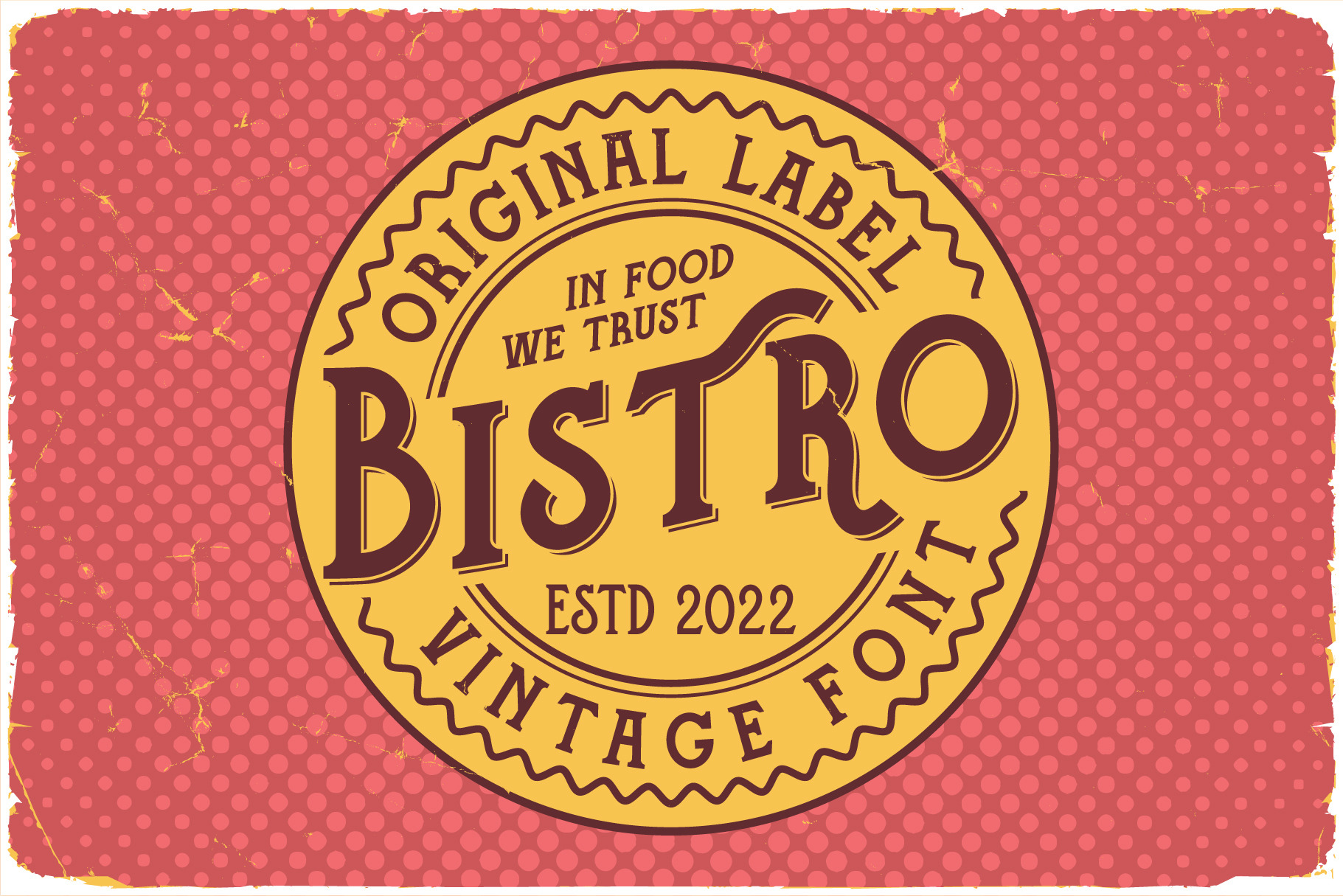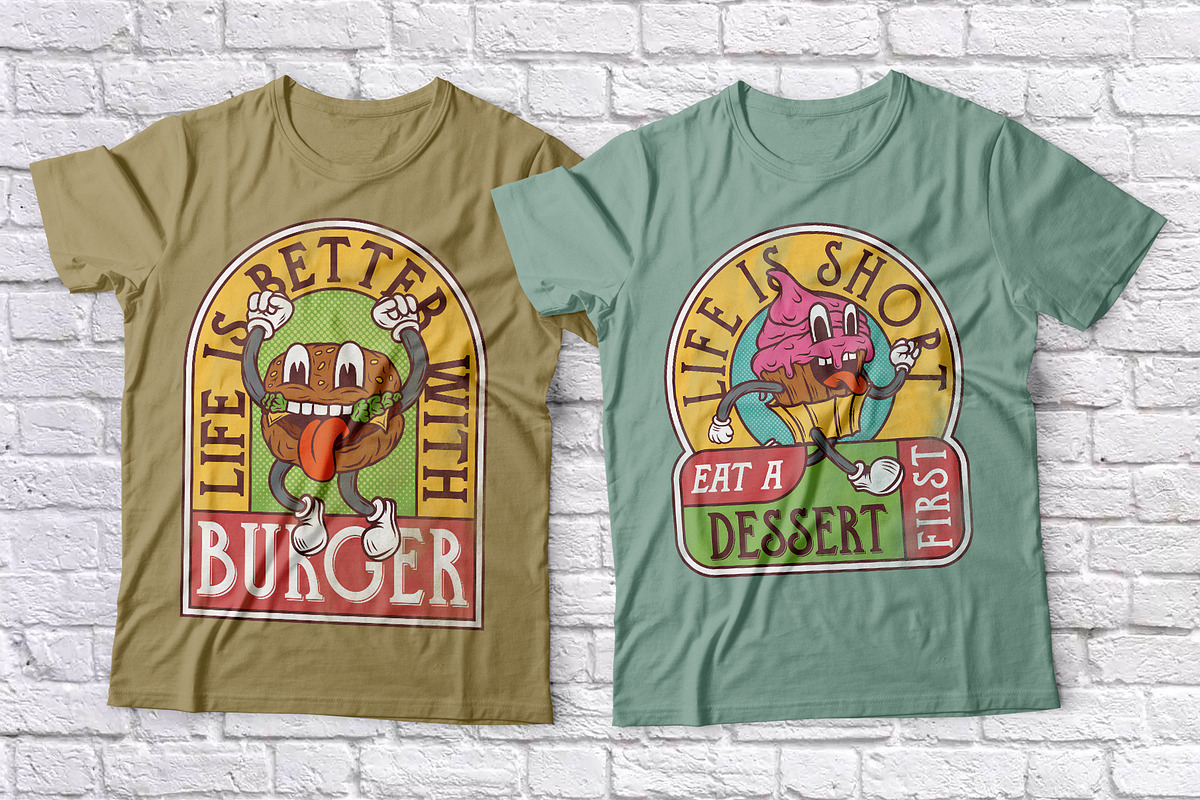
Bistro Font and graphics
Introducing original label font named Bistro. This font has a wide languages support with west european characters (check out all available characters on previews). The font family has four styles: Regular, Shadow, Rough, Rough Shadow. This font will look good on any vintage styled designs like a poster, T-shirt, label, logo, etc.
- A lot of additional symbols and multilingual support.